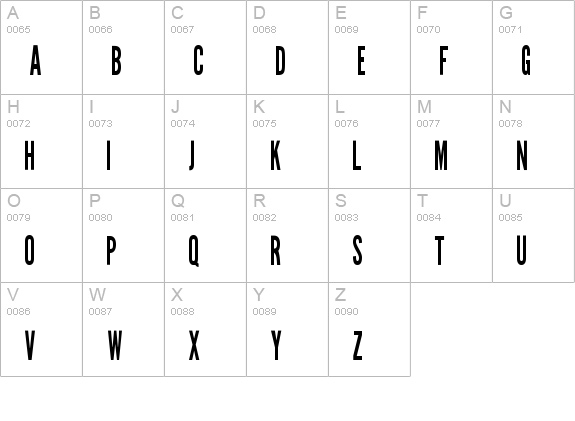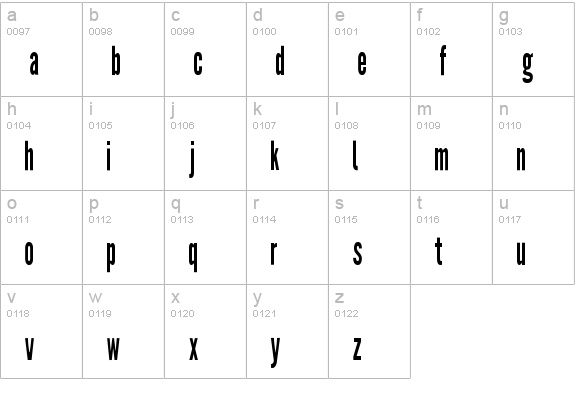
Warsaw Gothic Condensed Font Details
Warsaw Gothic Condensed is a distinctive, condensed-width variant in the Warsaw typeface family \xE2\x80\x94 well suited to design and typography projects.
Warsaw Gothic Condensed is a sleek and stylish font that is perfect for adding a touch of sophistication to any design project. With its condensed letterforms and bold lines, this font exudes a sense of modernity and elegance. The design of Warsaw Gothic Condensed is inspired by the Gothic architecture of the city it is named after. The tall and slender letterforms mirror the soaring spires and intricate details of the Gothic cathedrals found in Warsaw. Despite its high-end appearance, Warsaw Gothic Condensed is a free font that is available for download at FontsMarket.com. This means that designers and creatives can add a touch of class to their projects without breaking the bank. Whether it's for a logo, a poster, or a website, Warsaw Gothic Condensed is sure to make a statement. Its condensed nature allows for more text to fit in a limited space, making it ideal for headlines and titles. The bold lines and sharp edges of each letterform ensure that every word stands out with utmost clarity and impact. The versatility of Warsaw Gothic Condensed is another reason why it is a must-have font. It can be used for both modern and vintage-themed designs, adding a touch of timeless elegance to any project. From fashion to architecture, this font is the perfect choice for those who want to make a bold statement. With its free availability and stunning design, Warsaw Gothic Condensed is a font that should not be missed. Download it today at FontsMarket.com and elevate your designs to a whole new level of sophistication.